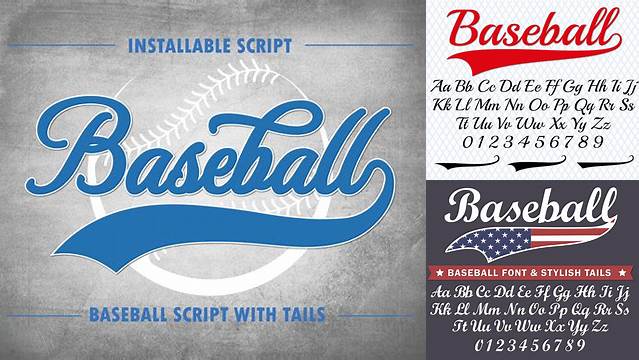
Baseball Fonts With Tails: Design And History
Baseball fonts with tails are more than just letters; they're a visual representation of the sport's energy, history, and tradition. Guys, these fonts, particularly those with elegant tails, add a touch of classic flair and dynamic movement that is synonymous with baseball. Whether it's the soaring curve of a bat swing or the graceful arc of a thrown ball, these fonts capture the game's spirit. Today, we will delve into the world of baseball fonts, specifically focusing on those with captivating tails, exploring their characteristics, history, and uses. I am very excited to take you all on this exploration.
Unveiling the Essence of Baseball Fonts with Tails
Baseball fonts with tails are unique in how they represent the sport, it really creates a special aesthetic. They are often characterized by their script-like appearance, reminiscent of handwritten signatures or the lettering found on vintage team jerseys. The "tails," or extended strokes, are a defining feature, adding a sense of flow and dynamism to the font. These tails can swoop, curve, and connect letters in ways that echo the graceful movements seen on the baseball field. The use of these fonts creates a sense of nostalgia, invoking memories of baseball's golden age. They are commonly used in team logos, promotional materials, merchandise, and even stadium signage. The design choices are varied. Some fonts feature bold, assertive tails that command attention. Others have more delicate, flowing tails that offer a sense of elegance. Some may even mimic the stitching on a baseball or the seams of a glove. The versatility of baseball fonts with tails makes them a great choice for capturing the essence of the game. What they really do is bridge the gap between the sport's historical roots and modern design. They can range from the classic, traditional styles to more contemporary and stylized versions. The carefully crafted tails, coupled with the overall letterforms, convey a sense of movement and energy, reflecting the dynamic nature of baseball itself. The design of a baseball font must also consider the readability. They still need to be easy to read, even when displayed at a large scale, to ensure the message is clear. These fonts are not just decorative; they are a means of storytelling, capable of communicating the essence of baseball in a single glance.
These fonts are a visual embodiment of the sport's spirit, combining historical charm with modern design trends. You can consider the type of font used on your favourite team's logo, and it can make a big difference. The choice of a font is not merely aesthetic; it's an important part of branding, reflecting a team's identity and values. A well-chosen font can build loyalty, attract fans, and reinforce the team's presence. The right font can resonate with fans, who have a connection to the team and the sport. A typeface can be used to celebrate the rich history of the game, while also embracing innovation in design. The unique attributes of these fonts, like the tails, help the design to stand out from others. Baseball fonts with tails use artistry to create a unique design language. These fonts must also have the flexibility to be used across various platforms. They need to look good on digital screens, as well as printed materials. This adaptability guarantees that a team's branding is uniform across all areas. The impact these fonts have on the overall branding is significant. It is a way to express creativity and it is important to convey the team's values and history.
A Historical Journey: Evolution of Baseball Font Design
Over the years, baseball font design has evolved, reflecting changes in the sport's style, technology, and design trends. The early fonts were straightforward, often based on simple, bold sans-serif or slab-serif typefaces. These fonts, used on uniforms, scoreboards, and promotional materials, emphasized readability and practicality. As time passed, designers began to experiment with more ornate styles. The introduction of script fonts and the use of tails marked a new period in baseball font design. These changes reflected a desire to add personality and visual interest to team branding. The style of the font started to mirror the players' personalities and the team's identity. The tail became a design element. It created a sense of movement and energy, mirroring the dynamic nature of baseball. These fonts started to evolve, with designers looking to balance tradition with innovation. The emergence of digital design tools opened new possibilities for the customization and production of fonts. Designers could create unique typefaces. This allowed teams to stand out. The fonts adapted to the changing expectations of fans. The shift towards modern design, with cleaner lines and vibrant colors, reflected a need for teams to engage with a new generation of fans. The incorporation of digital media also influenced design. The fonts had to be readable across a variety of platforms. They had to look good on everything from websites to social media, as well as printed materials. The overall evolution showcases how baseball font design is a living, breathing art form. The fonts reflect the past, while simultaneously paving the way for the future.
The evolution shows a constant push and pull between tradition and innovation. Teams aim to create branding that will resonate with their fans. This led to a variety of design choices, each aiming to embody the heart and soul of the game. Today, it is common to see a blend of these elements, with modern fonts incorporating traditional features, and vice versa. The ongoing evolution of baseball fonts is a great reflection of the sport's culture. It really does mirror changes in society, and it still stays true to its roots. Whether it's a vintage-inspired script or a sleek, modern sans-serif, these fonts continue to play a central role in baseball's visual identity. Teams are very intentional with the fonts that they choose, and they create designs to reflect their team's culture and values. The evolution of baseball font design also showcases the impact of technology and design trends. The use of computers, the internet and design tools has expanded the possibilities, leading to even more creativity and innovation. It also highlights the importance of the creative professionals who design these fonts. These designers have a strong understanding of history and design. They help to create new fonts that capture the essence of the game. It is a testament to their artistic vision that the baseball fonts with tails continue to capture the spirit of baseball. The evolution of the fonts is an ongoing process, and the future will see even more creativity and innovation in baseball font design.
Iconic Examples: Notable Baseball Fonts with Tails in Action
Throughout baseball history, some fonts have become synonymous with specific teams, moments, and eras. These fonts, with their memorable tails, continue to resonate with fans. One of the most famous examples is the script font used by the New York Yankees. This font, with its elegant script and extended tails, is recognized all over the world. It embodies the team's history of success and its status as a global sports brand. The Los Angeles Dodgers font is another great example of the use of tails. The unique font reflects the team's brand. It creates a strong connection with the fans and its rich history. The Boston Red Sox, use a script font that is deeply tied to the team's identity. It reflects the team's history and traditions, as well as its passionate fan base. The use of tails, often seen in the wordmark and on team merchandise, is an important element. The font adds a touch of class. These fonts are more than simple choices. They are a representation of the spirit of the teams, and they evoke a sense of nostalgia and belonging among fans. Each team's font, with its individual traits, works as a visual signature, expressing the club's identity and core values. In a lot of cases, teams are very careful when selecting a font that reflects their culture and goals. The right font helps create the right image, and helps build brand loyalty, and ensures a strong connection between the team and its fans.
These fonts, chosen to express the team's essence, are great examples of how design affects team branding. They help the team establish a strong identity. The font design has a great influence on the look and feel of the team. They have the power to create an emotional connection with fans. The fonts used by various teams offer an important insight into the significance of design. They also highlight the ongoing work of designers. Designers are always working hard to create fonts that capture the soul of the sport and its teams. These iconic fonts are great examples. They reflect the sport's legacy and they represent its continuing appeal. They do this by encapsulating the spirit of the teams, while also making the design stand out from other teams.
Design Tips and Best Practices for Baseball Fonts with Tails
Designing a successful baseball font with tails requires an understanding of the sport's aesthetics, design principles, and the intended use of the font. Start with research. Understand the history of baseball fonts, and the aesthetics that work well with the sport. The study of team logos and branding can provide ideas. Begin with a concept. Consider the desired mood and character. A classic, vintage look would call for a script font with sweeping tails. A modern design could use a more streamlined approach. Sketch and experiment. Explore different letterforms, tails, and weights. Think about the overall flow and readability. The balance between design and usefulness is important. The letters need to be beautiful and easy to read. Also, focus on legibility. Make sure the font is readable at various sizes, from large banners to small merchandise items. The tails need to be carefully designed so they don't impair readability. Balance the design of the tails with the overall structure of the letters, and keep the design simple. Think about the font's context and where it is to be used, and choose a font that fits your needs. The use of color is important. The chosen colors should resonate with the team's brand and values. Try to find a balance between readability and aesthetics. Test the font in various applications, to make sure it works. The process of design is iterative. Be willing to make adjustments and refine your design until the font meets the needs of the project. The final step is to make sure the font is consistent across all platforms. Maintain a consistent design across all materials, so the brand stays consistent. Keep your design easy to read, so it is recognizable by fans. These best practices help create an effective baseball font, that captures the spirit of the sport and meets the team's branding needs.
Baseball Fonts with Tails: The Future
The future of baseball fonts with tails is bright, with ongoing innovation, creativity, and a deep appreciation of the sport's history. As design technology evolves, we can expect more detailed and unique fonts. Designers will continue to experiment. The integration of these fonts with digital platforms will also play a role. We will see increased use of animated fonts, dynamic typography and interactive design. This will create more dynamic visual experiences for fans. Designers must balance innovation with respect for history, as the enduring appeal of baseball fonts is in their ability to capture the essence of the sport. Trends in design will definitely continue to evolve, and it is important to stay relevant to the changing times. The use of artificial intelligence may also offer new design opportunities. This may include automated font generation and the ability to customize fonts to meet specific needs. The goal is to create more personalized and dynamic designs. The importance of the fonts will be amplified as baseball teams continue to develop their branding. These fonts will play an important role in telling the story of the game. The fonts create a sense of nostalgia and belonging. Baseball fans will continue to use these fonts for years to come. The continued innovation of the fonts will help shape the sport's visual identity. The use of tradition will continue to be combined with the embrace of modern design. These fonts will play a major role in promoting the sport and reaching out to fans. Baseball fonts will play a role in the sport's visual identity for years to come.